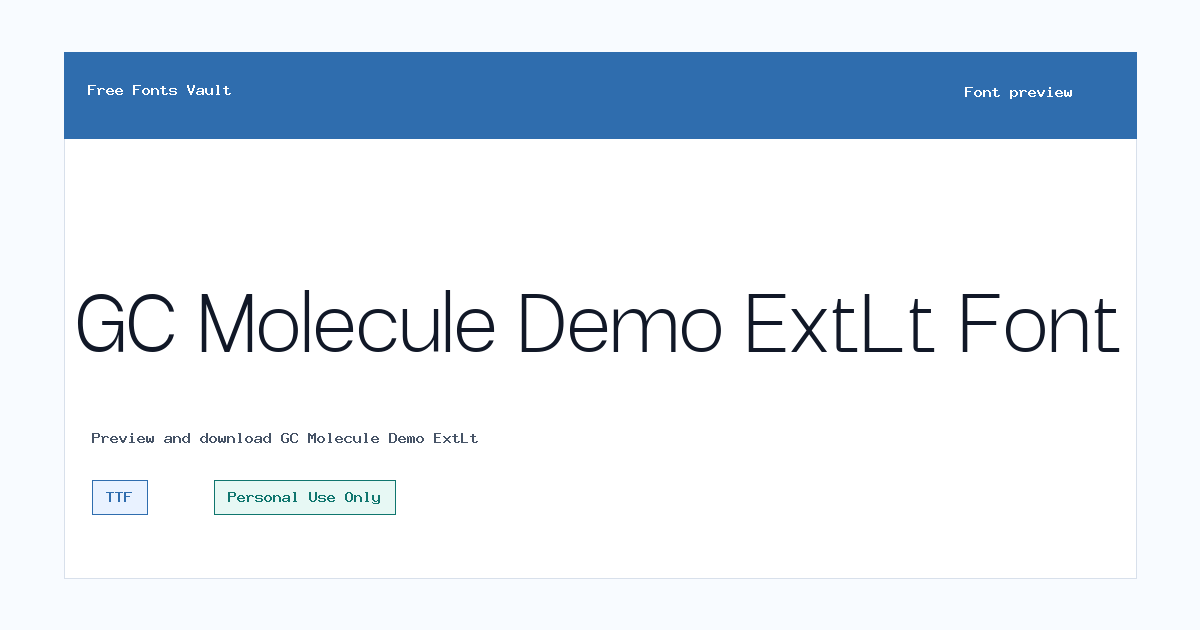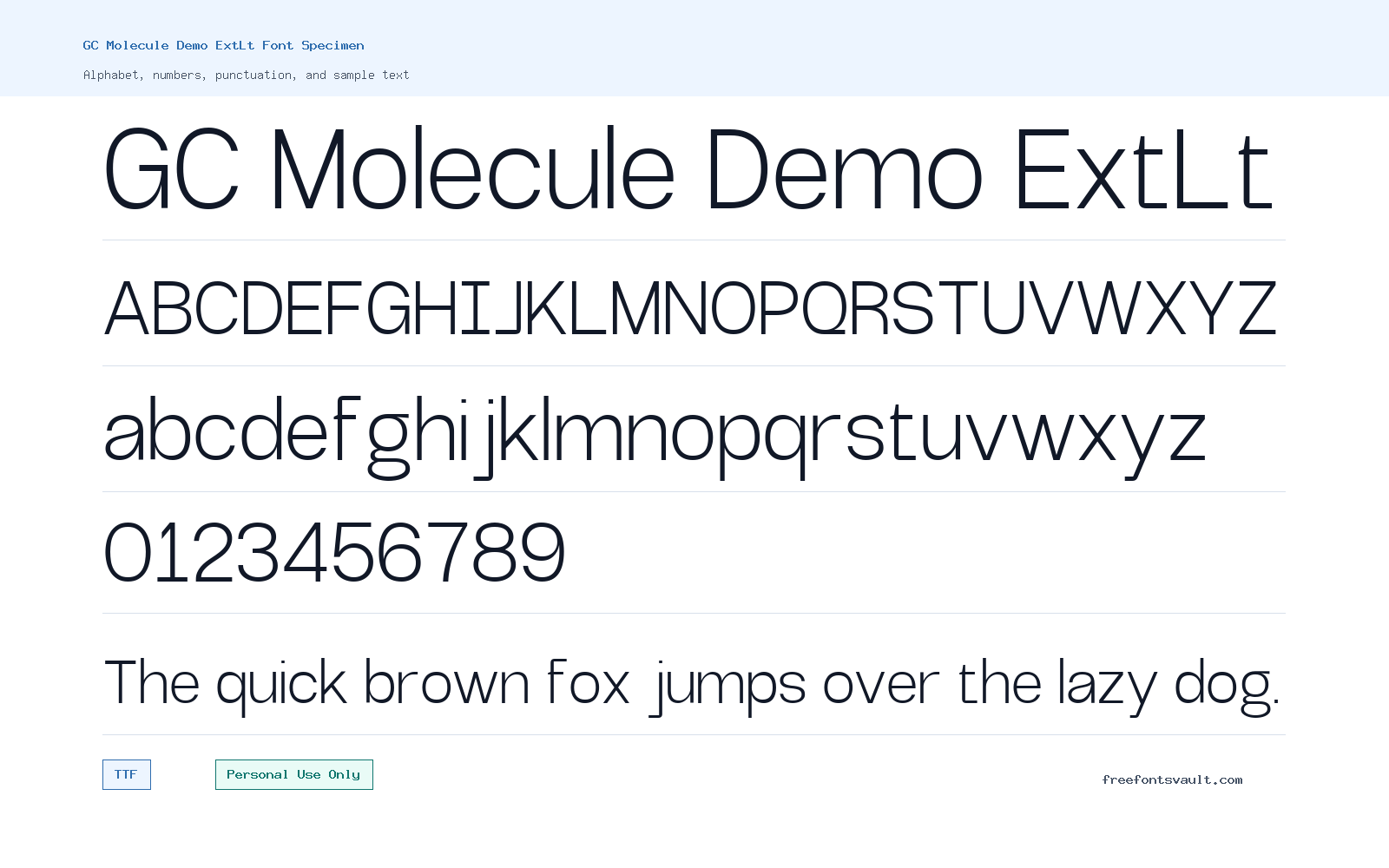
GC Molecule Demo ExtLt
- Designer Ken Priska Dewirani of Glyphonic
GC Molecule Demo ExtLt is a light-weight sans serif font with a clean, modern look. It is best approached as a display and layout testing font for personal projects, especially when you want slim lettering with a calm, minimal tone.
About GC Molecule Demo ExtLt
GC Molecule Demo ExtLt is part of the GC Molecule name and appears in an ExtraLight style, with the font file marked at weight 300. That gives the letters a fine, airy presence rather than a heavy headline feel. Use it where the design needs space, restraint, and a lighter typographic voice. It can work well for short titles, portfolio headings, mood boards, personal branding drafts, invitation mockups, social graphics, and clean website concepts. Because the style is very light, it will usually look strongest at medium to large sizes where the thin strokes can stay visible.
Before downloading, spend time in the preview box with the exact words you plan to use. Test uppercase titles, mixed-case headings, numbers, punctuation, and any special characters you need. Extra-light fonts can look elegant, but they may lose impact on busy backgrounds, low-resolution screens, or small mobile text. If you use it in a layout, pair it with a more readable text face for body copy. A neutral regular-weight sans serif or a quiet serif can help keep paragraphs clear while GC Molecule Demo ExtLt handles the lighter headline or accent role.
- ExtraLight sans serif style with a thin, clean appearance
- Large headings, minimal title treatments, and light typographic accents
The designer is listed as Ken Priska Dewirani of Glyphonic, with Glyphonic named as the foundry.
Use GC Molecule Demo ExtLt for short text first, then test it at the final size before committing. Keep contrast high, avoid placing it over detailed images, and do not rely on it for long paragraphs. For a balanced layout, try it as a headline with a sturdier font for descriptions, captions, menus, or longer reading sections.
What does the ExtraLight style mean?
ExtraLight means the strokes are thin and delicate. It is better for larger display text than small body copy.
Who designed GC Molecule Demo ExtLt?
The font is credited to Ken Priska Dewirani of Glyphonic.